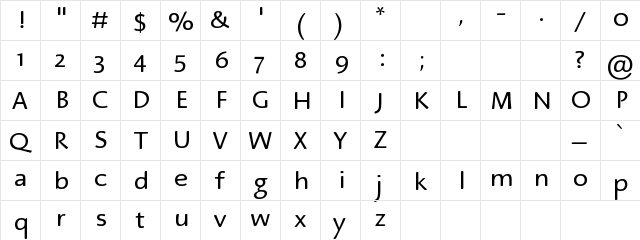
Asta-MediumPKA Regular Font Preview
Asta-MediumPKA Regular
Design Context for Asta-MediumPKA Typeface
Asta-MediumPKA is a composed and adaptable typeface that performs quietly and consistently across a wide range of design contexts.